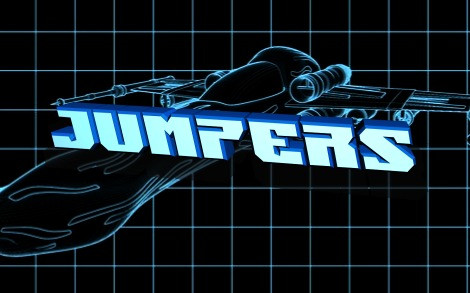
Jumpers Font, This bundle features strong, confident and powerful typefaces designed to work great with sports logos, club branding, apparel applications, labels and more. Please download and enjoy, thank you, and don’t forget to check out our other products.